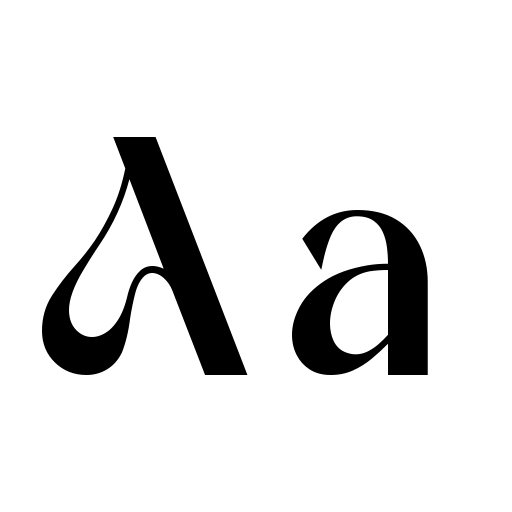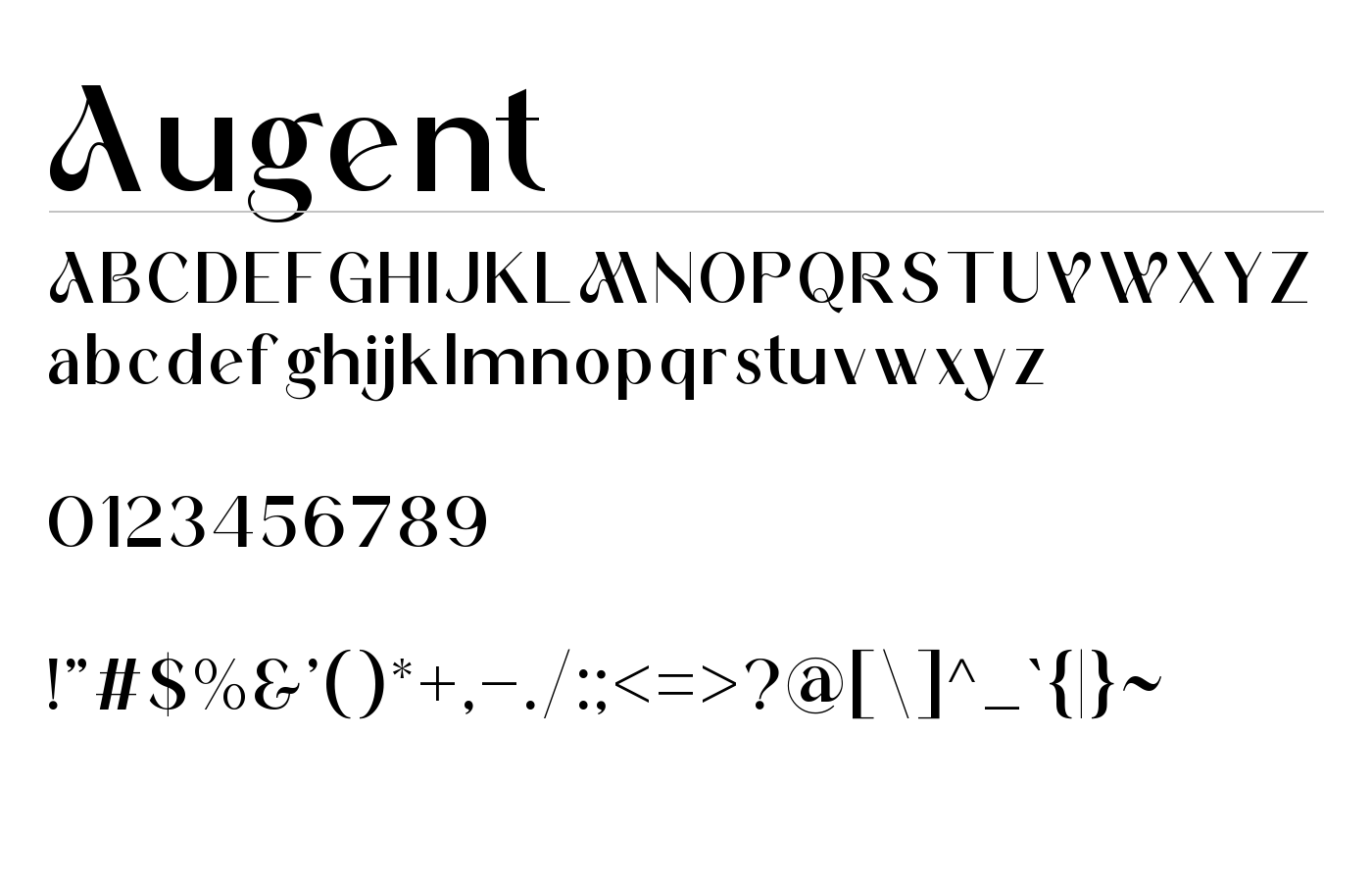
Augent is a stylish serif font that combines modern elegance with unique artistic flair. Its high contrast strokes and sharp, bracketed serifs create a refined and sophisticated look, while distinctive letterforms add character and visual interest. This font is perfect for luxury branding, editorial headlines, and elegant packaging, where it can bring a sense of exclusivity and creative charm.
Augent Font
About Augent Font
| Font family | Augent Font |
| Designer | SlideShoot 2023 |